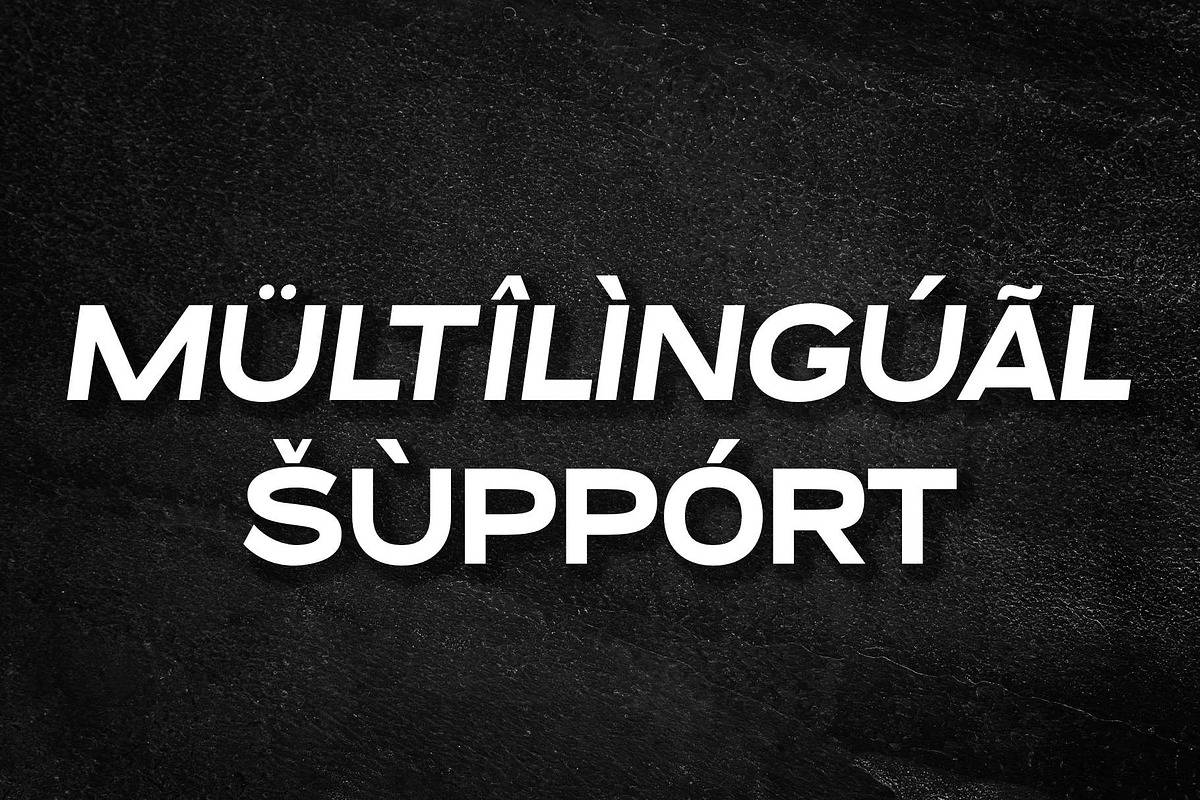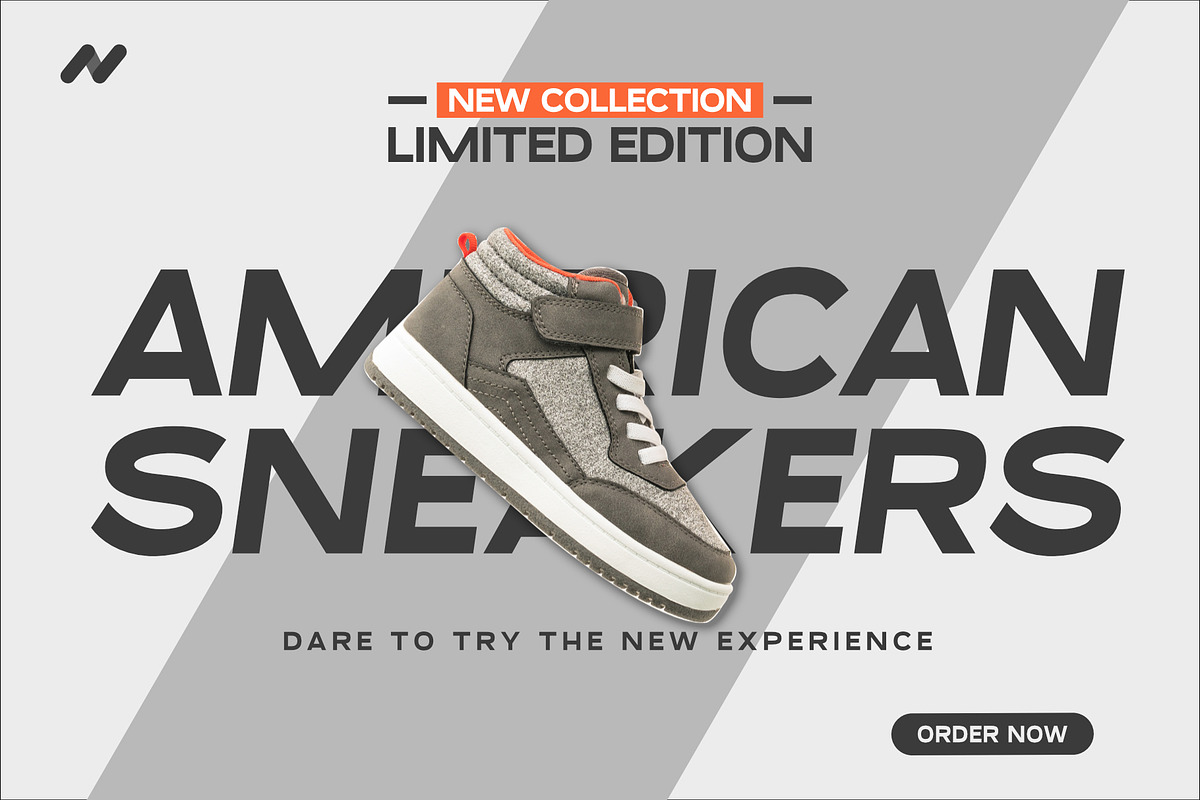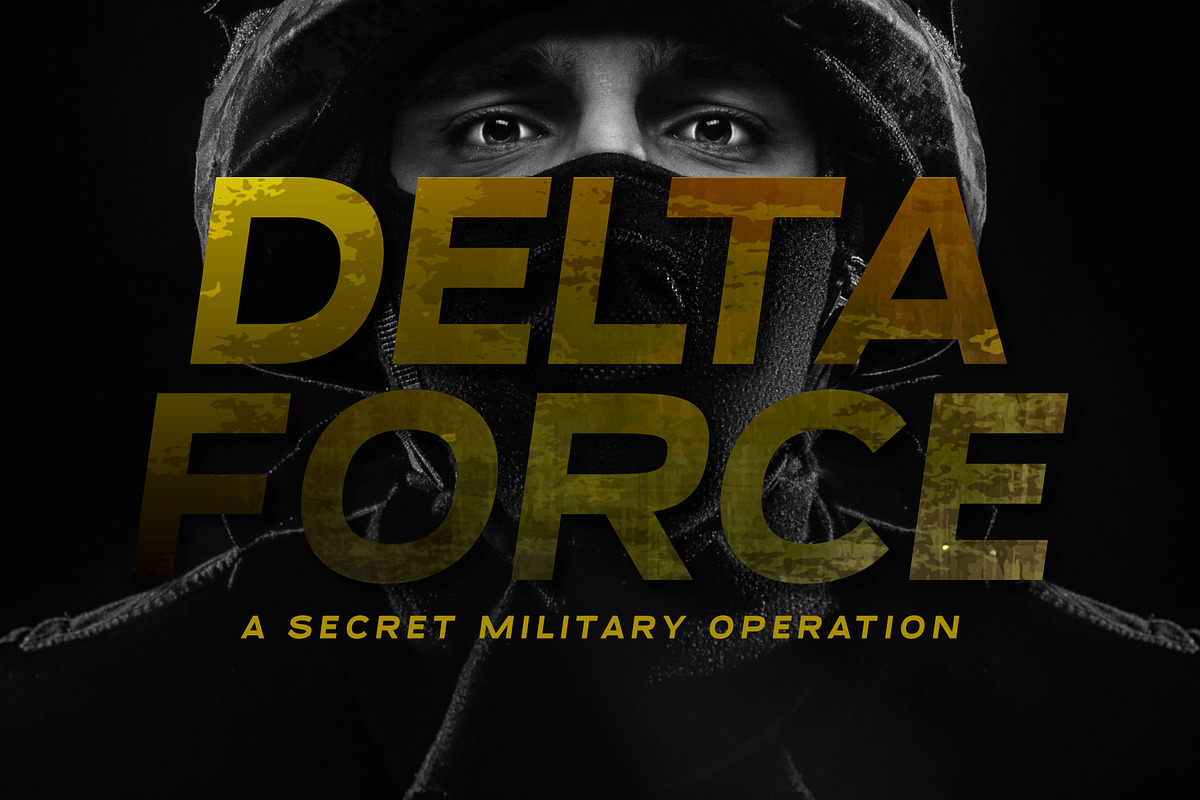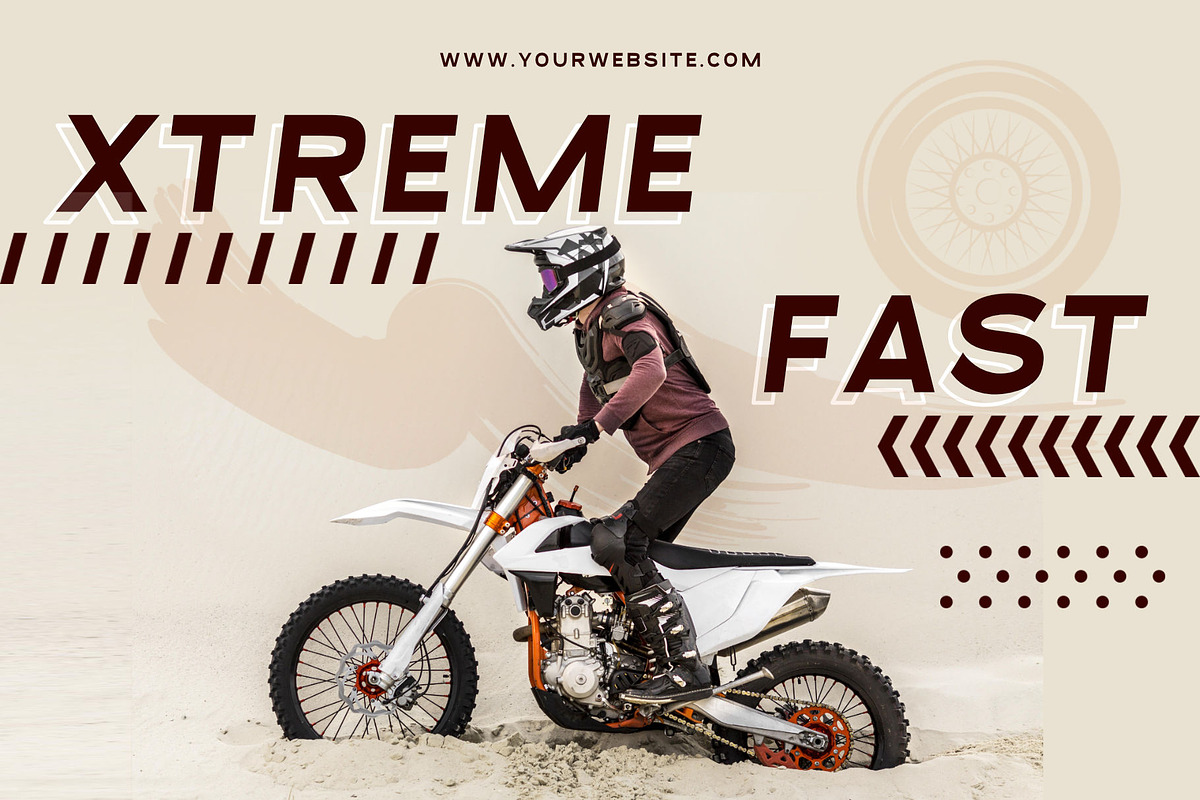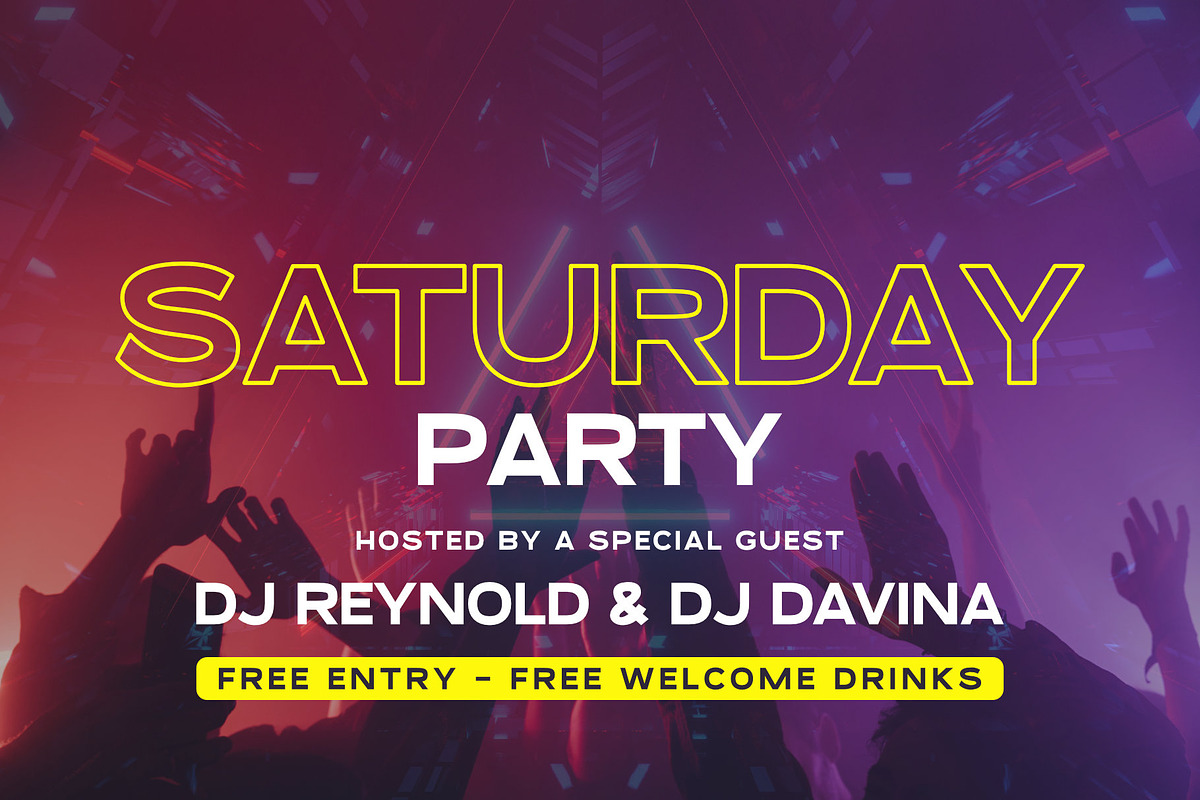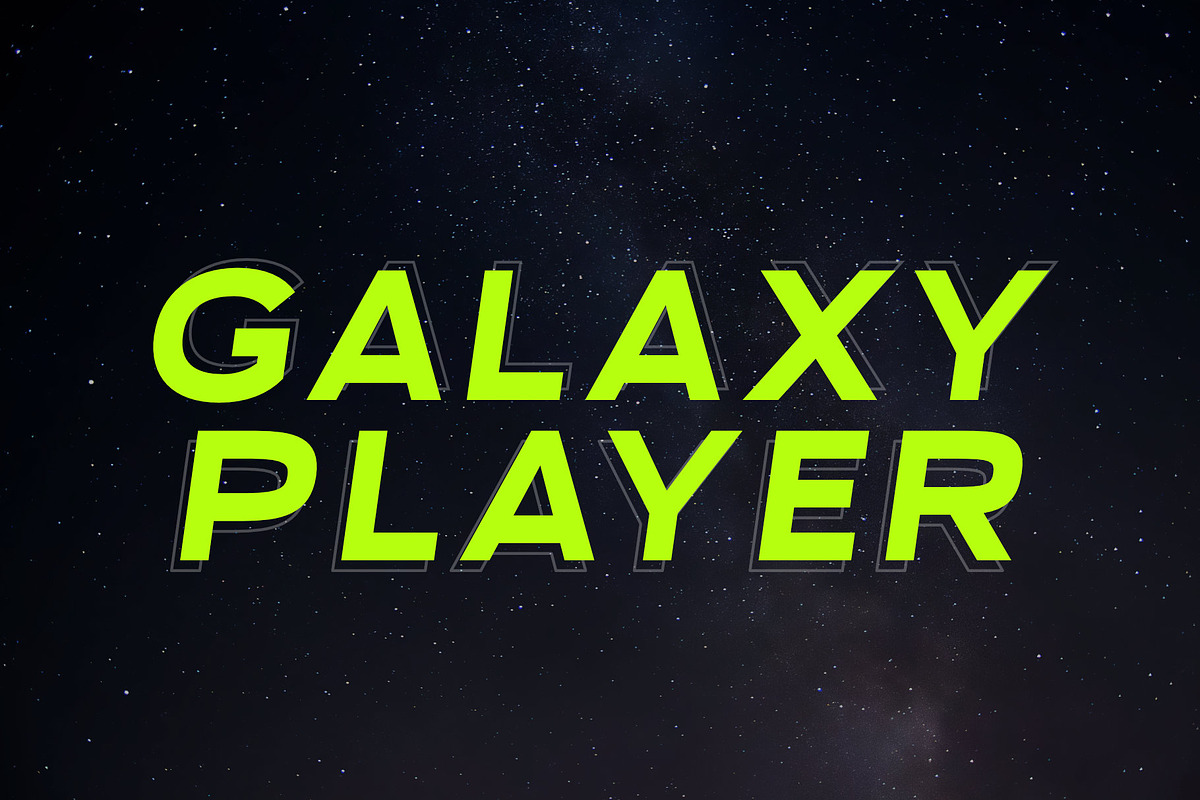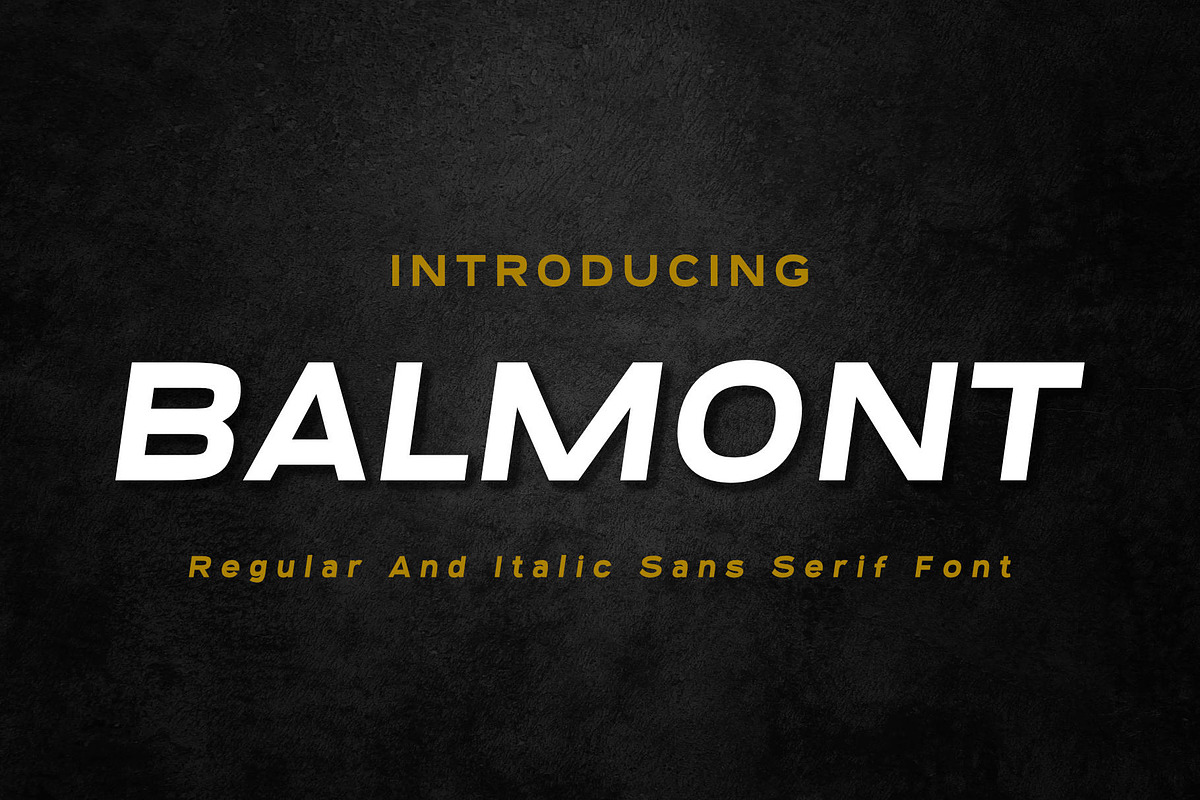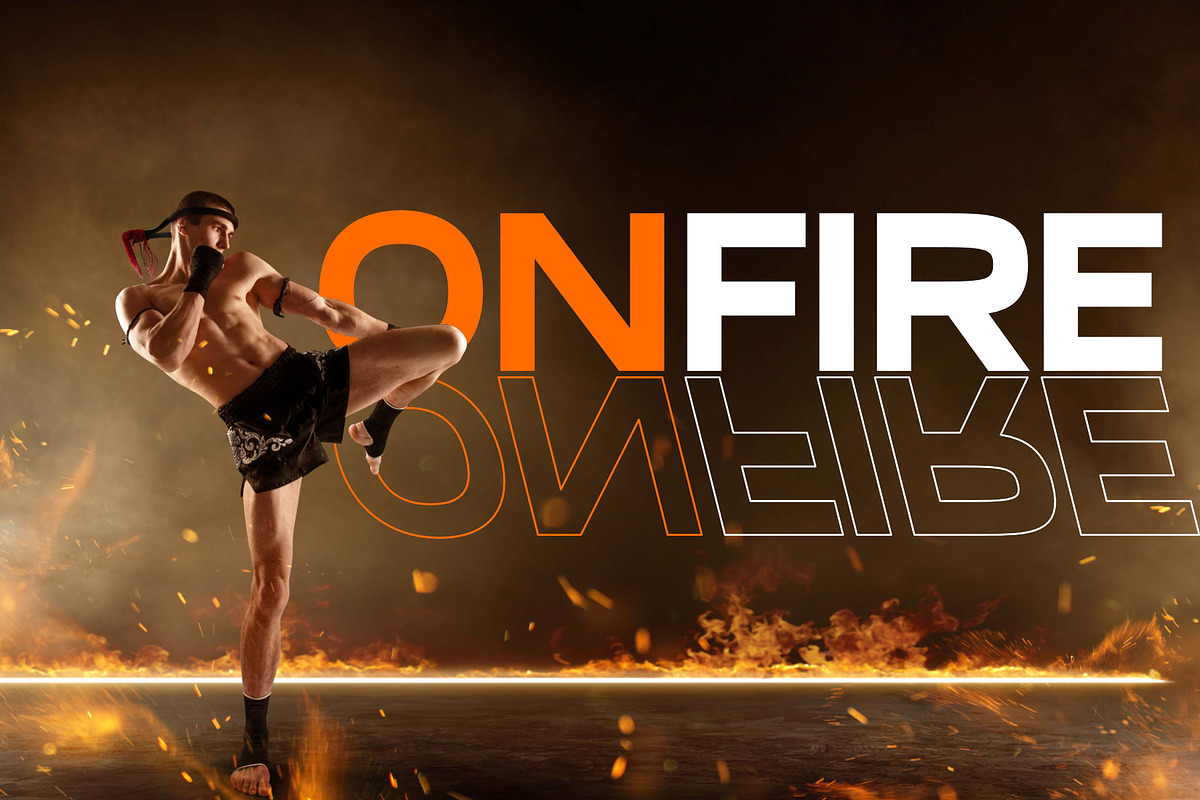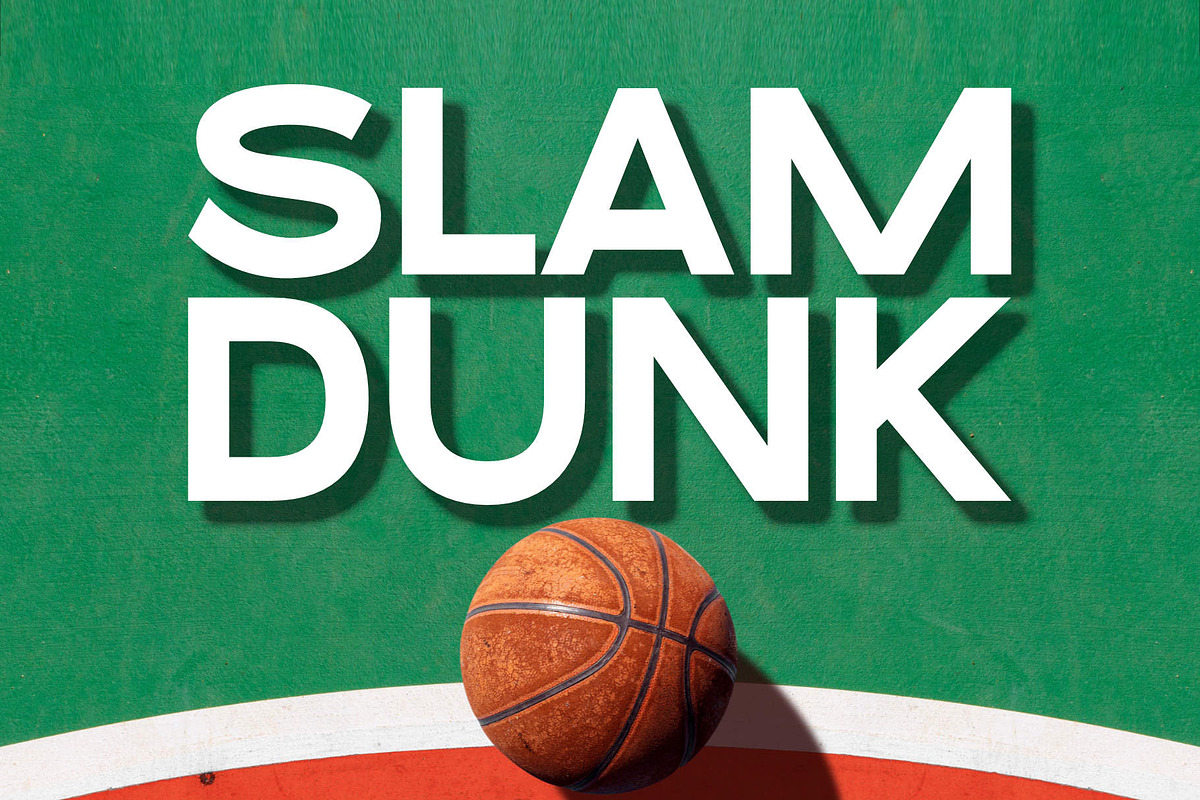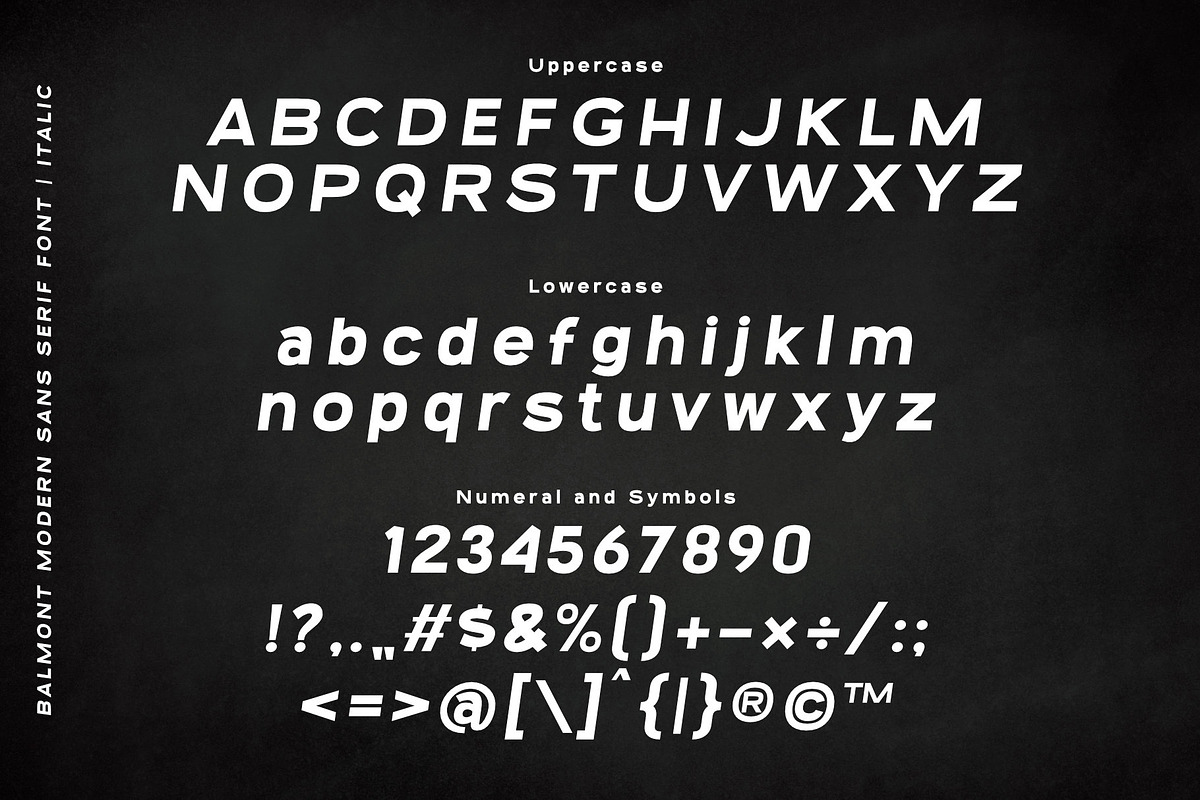
Balmont | A Modern Sporty Sans Serif
Balmont is a modern sans serif font that will make your design project stand out. This font features clean and geometric shapes, regular and italic, and a sporty and energetic vibe. Whether you need to create logos, posters, flyers, banners, or apparel designs, Balmont will add a touch of professionalism and style to your designs. Download Balmont today and enjoy this modern sans serif font.